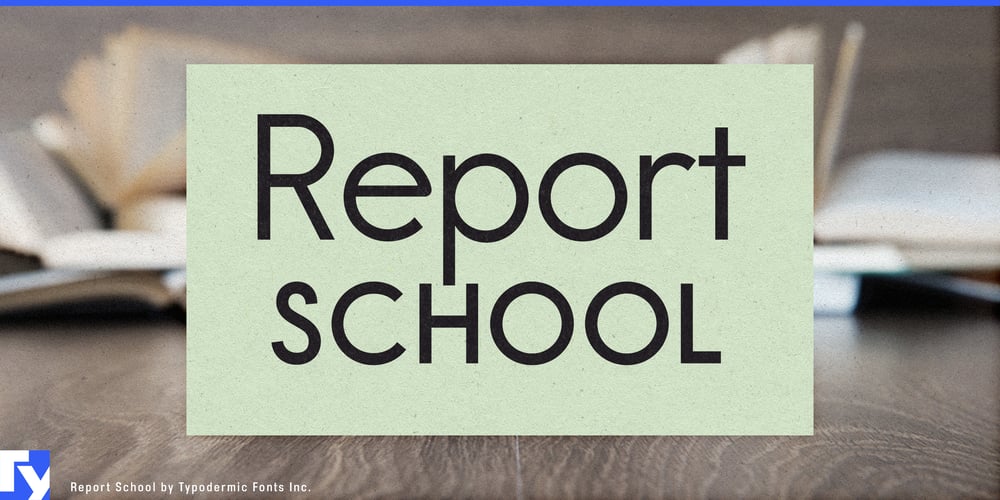
Report School Font Family was designed by Ray Larabie and published by Typodermic. Report School contains 6 styles and family package options. Inspired by the timeless simplicity of handwriting practice sheets, Report School reimagines the geometric sans-serif for the modern educational landscape. This typeface artfully balances clean lines with intuitive readability, creating a visual language that speaks fluently to both educators and students alike.At its core, Report School prioritizes legibility without sacrificing character. While many geometric typefaces lean heavily on stark forms, Report School softens its edges just enough to enhance comprehension. The result is a typeface that doesn’t merely look smart—it actively facilitates learning. Report School’s functionality extends beyond its appealing aesthetics. Tabular numerals ensure perfect vertical alignment, ideal for mathematical equations and data-heavy documents. The inclusion of primes, double primes, and triple primes offers precise notation for measurements, elevating the typeface’s utility in scientific and technical contexts.For designers seeking typographic finesse, Report School reveals its true versatility through OpenType features. Accessing stylistic alternates in applications like InDesign or Illustrator unveils serif-free versions of “I” and “J”, along with a straightened lowercase “q”. These subtle variations allow for fine-tuning of the typeface’s personality to suit diverse design needs. Report School doesn’t stand alone—it’s part of a thoughtfully crafted family. For those seeking a softer touch, the rounded Report variant offers a gentler interpretation of the same design principles. Meanwhile, Sweater School introduces a more casual stroke, perfect for projects that call for a dash of playful energy.Embracing linguistic diversity, Report School speaks volumes across cultures. Its extensive character set supports a wide array of Latin-based European writing systems, from the lyrical tones of Irish Gaelic to the staccato rhythms of Zulu. This linguistic versatility ensures that your message resonates clearly, whether you’re crafting content for a local classroom or an international educational platform. Choose Report School when you need typography that educates as effectively as it communicates. Its unique blend of geometric precision and intuitive readability makes it an invaluable tool for creating engaging, accessible educational materials. From textbooks to interactive learning platforms, Report School doesn’t just present information—it invites understanding.In a world where clear communication is paramount, Report School stands as a beacon of typographic clarity. It’s a partner in education, a facilitator of knowledge, and a testament to the power of thoughtful design. Let Report School elevate your educational materials, turning every page into an opportunity for enlightenment.